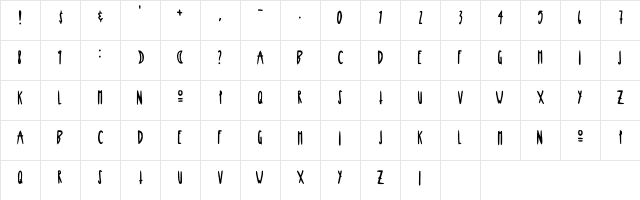
Moon Magick Regular Font Preview
Moon Magick Regular
Design Context for Moon Magick Typeface
Moon Magick is a composed and adaptable typeface that performs quietly and consistently across a wide range of design contexts.